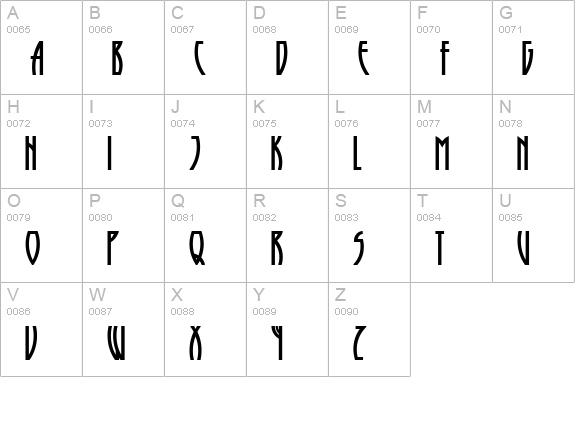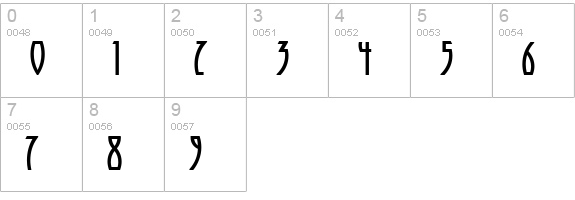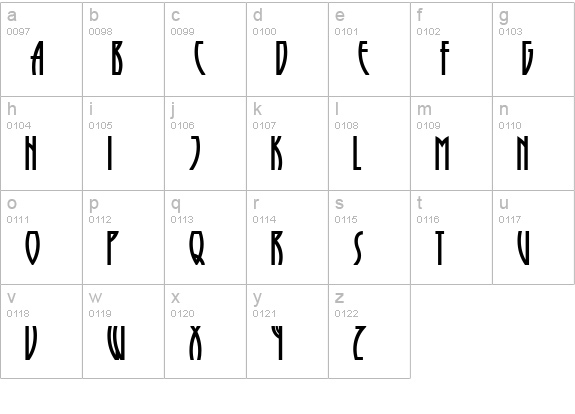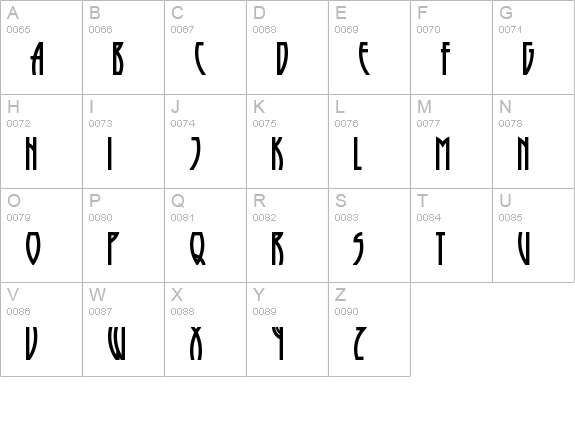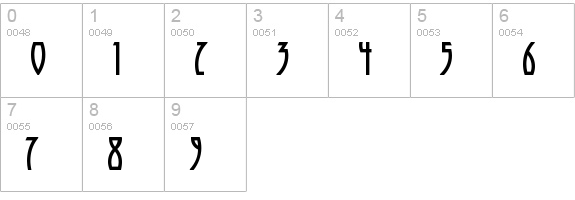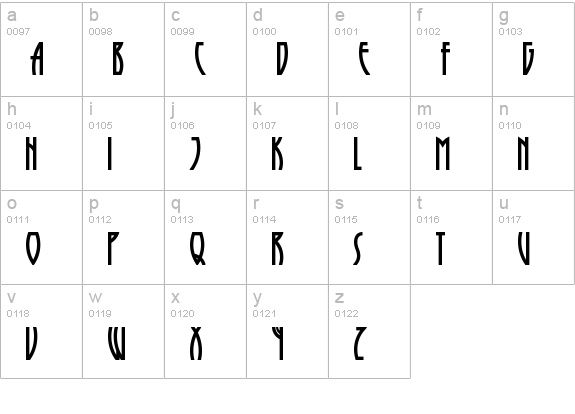
RunyTunesRevisited Font Details
Introducing RunyTunesRevisited font, a stunning and versatile typeface that exudes elegance and sophistication. With its sleek lines and modern design, this font is perfect for a wide range of projects, from branding to editorial design. The unique blend of classic and contemporary elements in RunyTunesRevisited font makes it a standout choice for those looking to make a bold statement with their typography. The best part? RunyTunesRevisited font is available for free download at FontsMarket.com. Yes, you read that right - this high-quality font is freely available to all, allowing you to elevate your designs without breaking the bank. Don't miss out on the opportunity to add RunyTunesRevisited font to your collection and take your projects to the next level. Download it today and let your creativity soar!